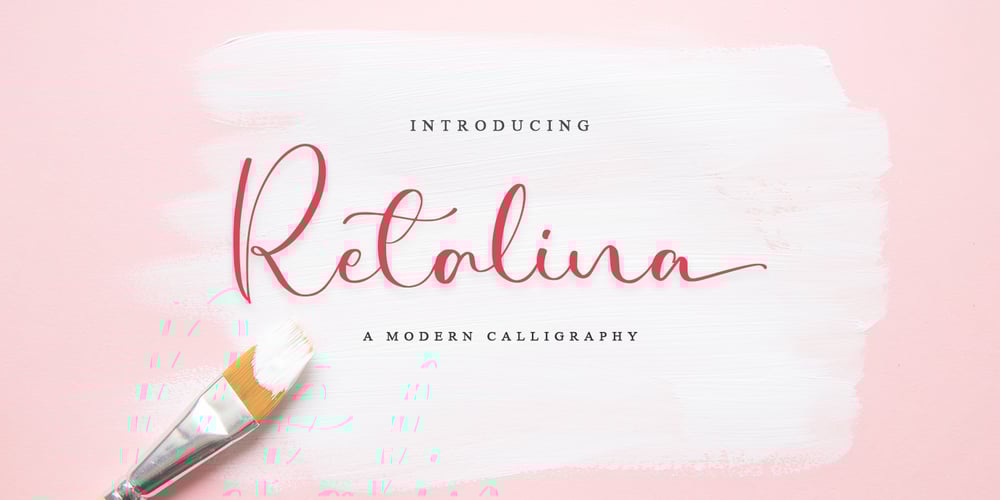
Retalina
Retalina font
Retalina Font Family was designed by Novia Himatunnisa and published by Nissa Nana. Retalina contains 1 styles and family package options. Retalina is a beautiful light handwritten font with a unique feel and a stunning impact. It will add a luxury spark to any design project that you wish to create!